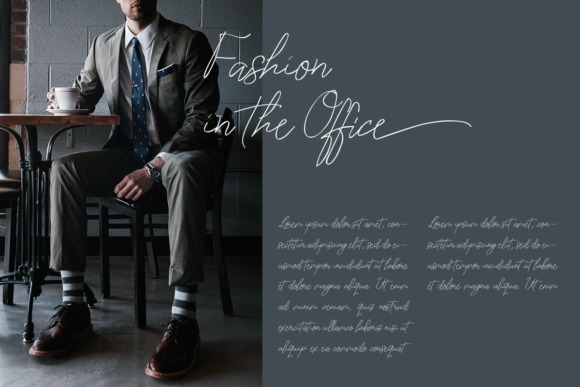
Attourney Handwritten Font
This font is sweet handwritten script while elegance still maintained. Made from font designer named Protext Studio. It has a classy, elegant and modern look that can be used for logos, branding, invitations, stationery, wedding designs, social media posts, and much more!